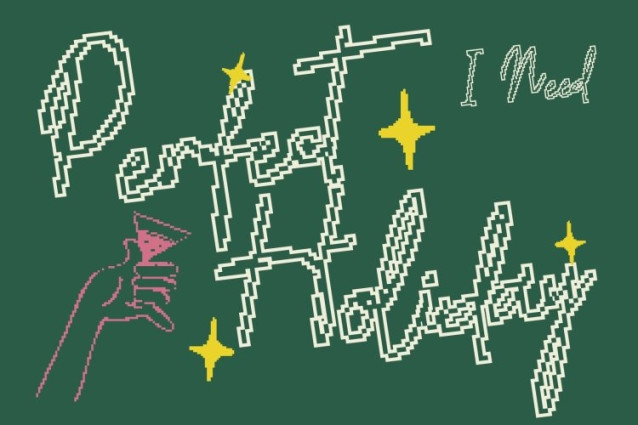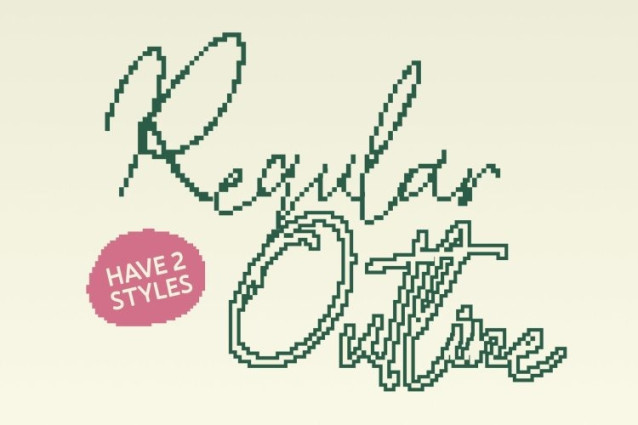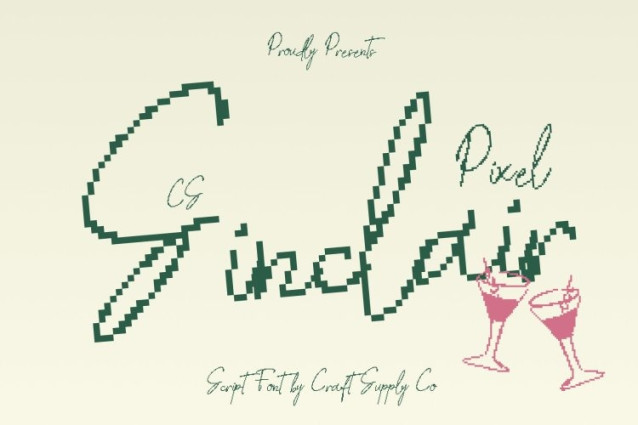
CS Sinclair Pixel Font
CS Sinclair Pixel Font This is a handwritten script font that captures the tender beauty of natural pen strokes, enhanced with delicate pixel-inspired detailing. Its smooth curves and relaxed connections create an effortless rhythm, while subtle pixel nuances introduce a modern digital character. The result is a script that feels organic, sincere, and quietly distinctive.
Expressive Movement with Digital Warmth
Designed to reflect authentic handwriting, the letterforms feature balanced strokes and fluid motion with slight natural variations. The refined pixel texture adds a light contemporary edge without interrupting the softness of the flow. This harmony allows the font to communicate emotion and warmth while remaining visually crisp.
Casual Elegance with Contemporary Clarity
This font blends casual charm with structured readability, making it versatile across creative contexts. Its gentle curves pair beautifully with minimalist layouts, and the subtle pixel detailing ensures clarity across print and digital platforms. The script remains expressive while maintaining polished legibility.
Perfect for Personal Branding and Heartfelt Design
Ideal for personal branding, inspirational quotes, invitations, greeting cards, lifestyle visuals, and social media content, this font adds authenticity and emotional depth to every composition. This font brings together handwritten grace and modern pixel refinement delivering warmth, personality, and understated elegance in every word.